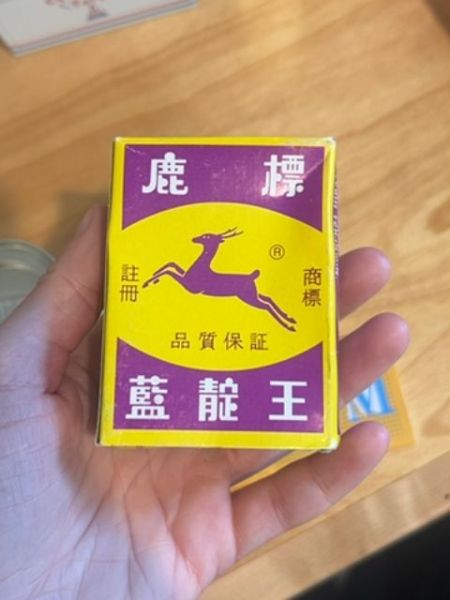
Lulangkeng
Lulangkeng is a traditional herbal medicine often used for relief from digestive issues.
The typography uses bold Kanji characters, giving the packaging a strong and authoritative appearance. The use of white text against a contrasting background enhances readability and emphasizes tradition.
The packaging features a vibrant yellow and purple color scheme, immediately attracting attention. It prominently displays a stylized deer logo in the center, which conveys a sense of agility and vitality.
- Commonly used for stomach ailments.
- The product is rooted in traditional medicine practices.
- The deer logo is a registered trademark.